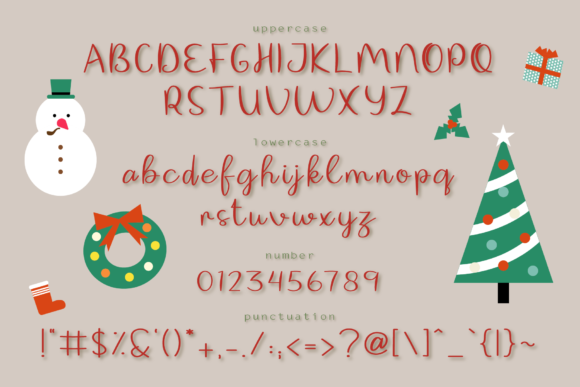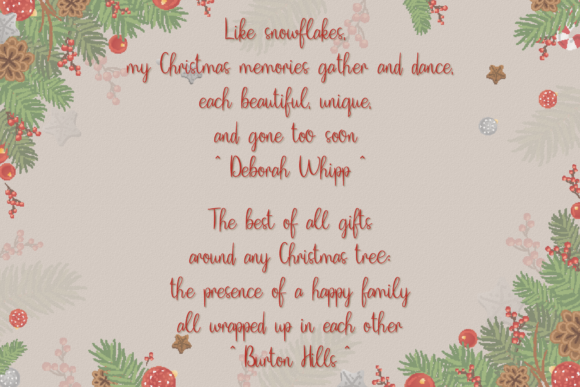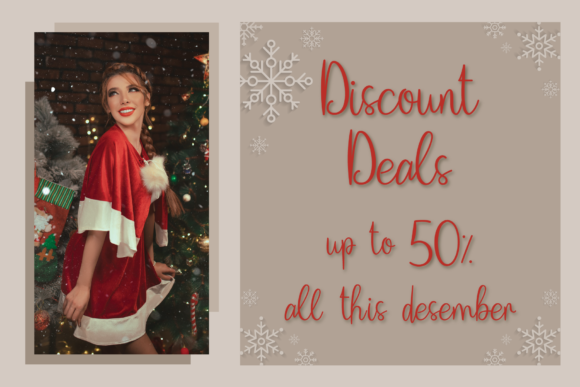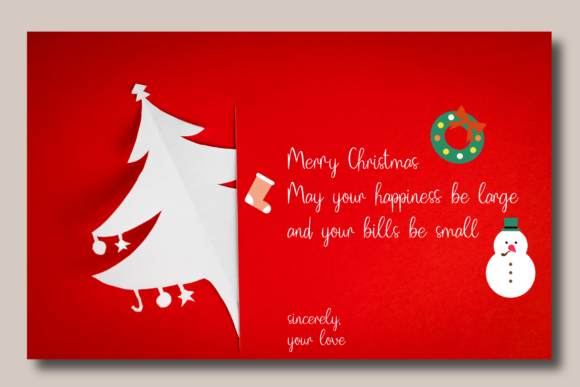
Introduction to Christmas Goodwill Font
Christmas Goodwill is a lovely and delicate script font that exudes elegance and class.
This font was particularly crafted for those who need a beautiful and refreshing look to their designs .
Key Features of Christmas Goodwill Font
Why Choose Christmas Goodwill Font?
Christmas Goodwill Font offers exceptional quality and versatility, making it a valuable addition to your design toolkit. Whether you’re creating for personal projects or commercial use, Christmas Goodwill Font delivers professional results.